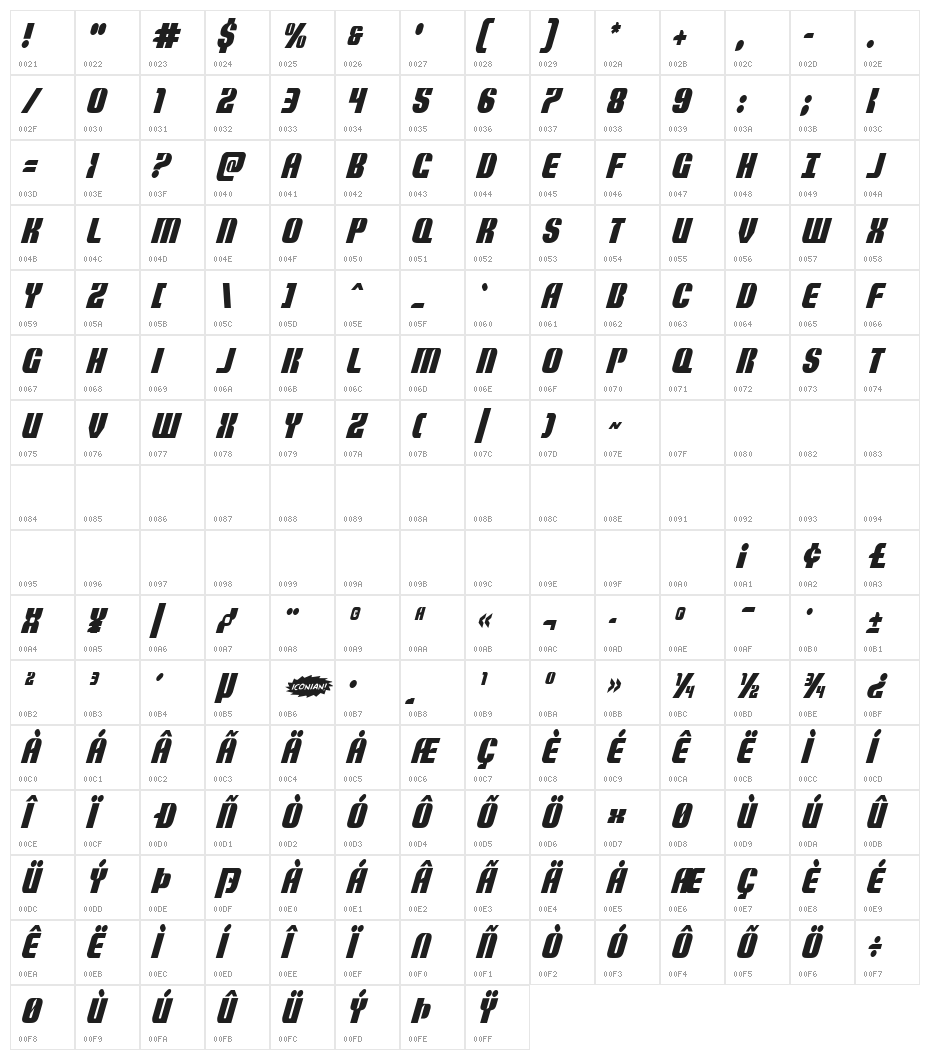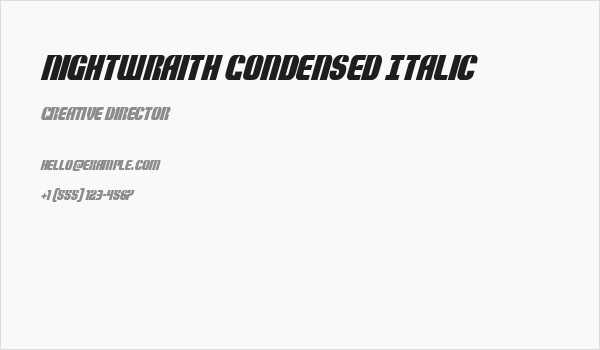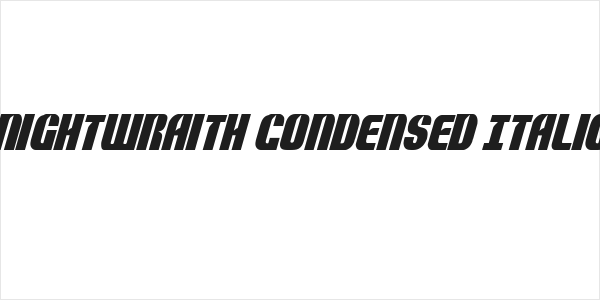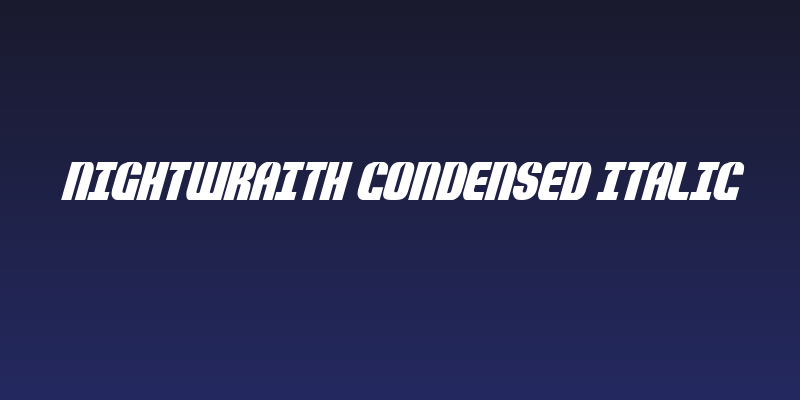
Nightwraith Condensed Italic Font
Nightwraith Condensed Italic Description
This font exhibits a bold and dynamic style with a strong italic slant, giving it a sense of motion and energy. The condensed letterforms enhance its compactness, making it ideal for space-saving designs. The characters are robust with thick strokes, providing a powerful visual impact. The uppercase and lowercase letters maintain a consistent style, while the numerals and special characters complement the overall aesthetic. Its boldness and slant make it stand out, suitable for attention-grabbing headlines or branding materials.
| Proposed Projects | Ideal for sports branding, dynamic posters, modern advertising, and impactful headlines. |